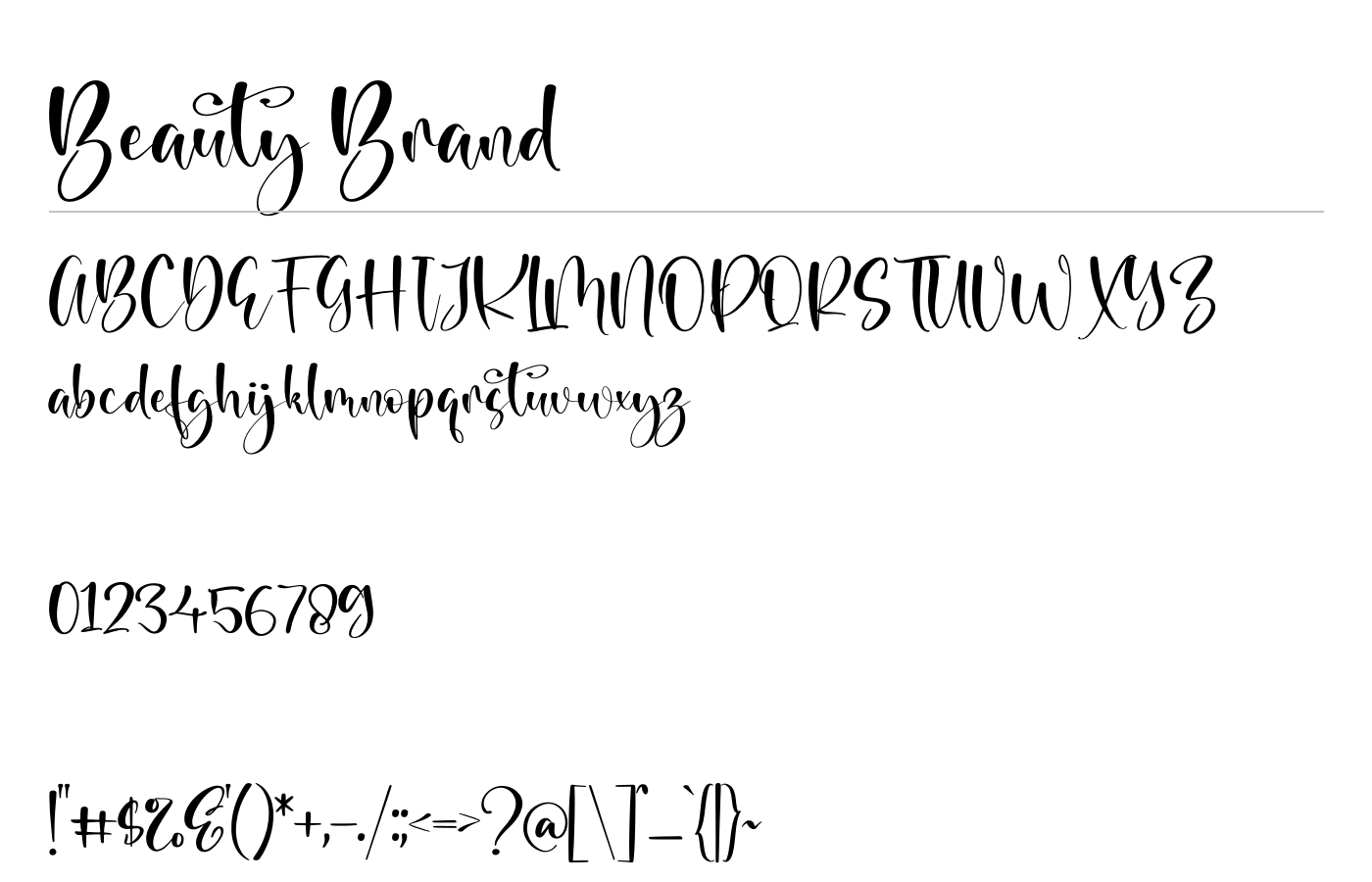
Beauty Brand Font is a stylish and elegant script typeface with flowing, hand-lettered strokes that combine smooth curves and delicate flourishes. Its medium weight and tall, graceful letterforms make it perfect for luxury branding, fashion, and beauty industry designs, adding a sophisticated, feminine touch to logos, packaging, and editorial work. This font shines in headlines and display use where its decorative character can truly stand out.
Beauty Brand Font
About Beauty Brand Font